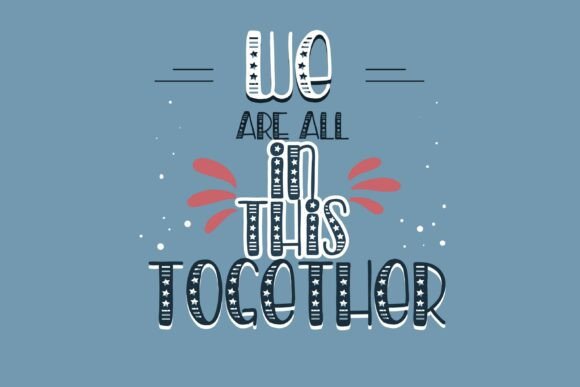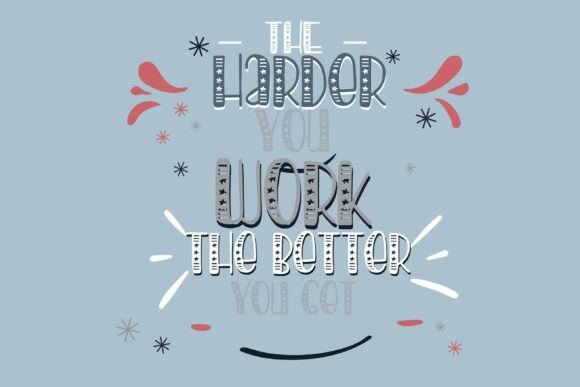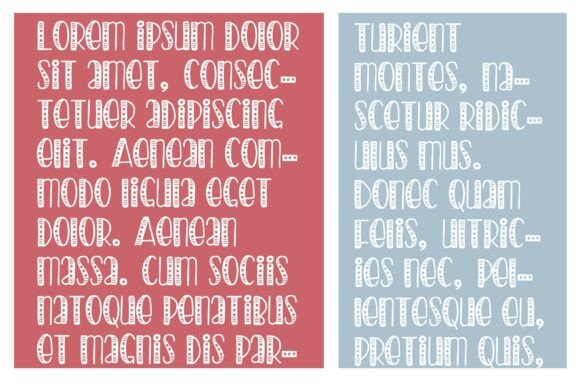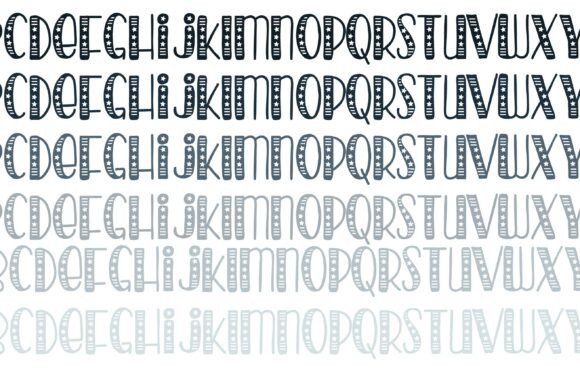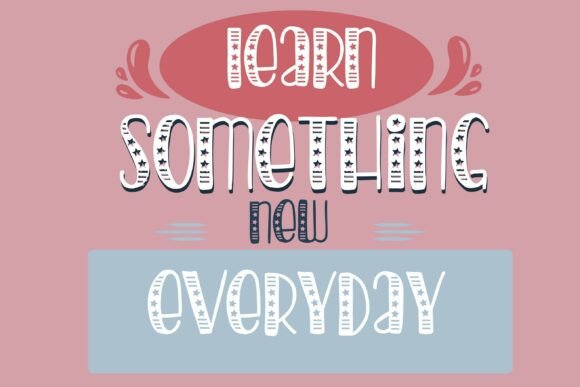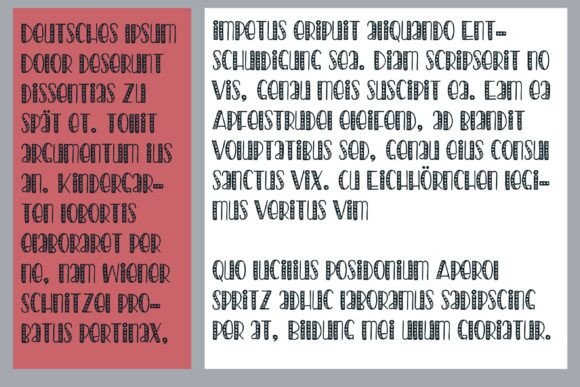
Introducing Americana Preserves: A Charming Hand-Lettered Display Font
Capture the cozy, heartwarming nostalgia of a small-town country summer with Americana Preserves, a delightful hand-lettered display font developed by Illustration Ink. This beautiful typeface is perfect for designers and crafters looking to add a touch of rustic charm to their projects.
A Beautiful Balance of Style and Patriotism
Americana Preserves strikes a beautiful balance between casual script fluidness and patriotic geometry. The font’s smooth, rounded characters are lined with alternating patterns of tiny internal stars and horizontal flag stripes, giving it a unique and charming aesthetic. The friendly, marker-like lines and neat inline details add to the font’s artisanal quality, making it perfect for a variety of design projects.
Perfect for Country-Inspired Designs
Americana Preserves is an outstanding design asset for anyone looking to create country-inspired designs. The font is perfect for:
• Local farmers market signs: Add a touch of rustic charm to your market signs with Americana Preserves.
• Rustic summer baking labels: Give your baked goods a homemade feel with this charming font.
• Custom backyard barbecue party banners: Create eye-catching banners that will make your party stand out.
• Family country kitchen decor prints: Add a touch of warmth and nostalgia to your kitchen decor with Americana Preserves.
• Festive scrapbooks: Create beautiful and memorable scrapbooks with this delightful font.
A Font that Evokes a Sense of Nostalgia
Americana Preserves is more than just a font – it’s a way to evoke a sense of nostalgia and warmth in your designs. The font’s charming aesthetic is reminiscent of a small-town country summer, where life is simple and carefree. With Americana Preserves, you can give your digital headers a sweet, hand-crafted Americana personality that will transport your audience to a simpler time.
Key Features of Americana Preserves
• Hand-lettered display font with a charming aesthetic
• Alternating patterns of tiny internal stars and horizontal flag stripes
• Friend, marker-like lines and neat inline details
• Perfect for country-inspired designs
• Easy to use and customize
Why Choose Americana Preserves?
There are many fonts available that can give your designs a rustic or country feel, but Americana Preserves stands out from the rest. Here are just a few reasons why:
• Unique and charming aesthetic: Americana Preserves has a one-of-a-kind look that will make your designs stand out.
• High-quality design: The font is carefully crafted with attention to detail, ensuring a high-quality design that will impress.
In conclusion, Americana Preserves is a delightful hand-lettered display font that is perfect for designers and crafters looking to add a touch of rustic charm to their projects. With its unique and charming aesthetic, this font is sure to evoke a sense of nostalgia and warmth in your designs. Whether you’re creating local farmers market signs, rustic summer baking labels, or custom backyard barbecue party banners, Americana Preserves is the perfect choice.